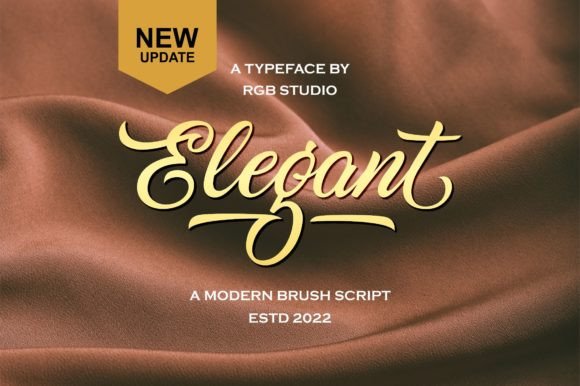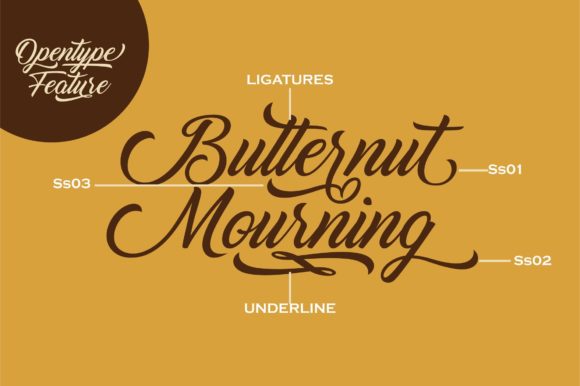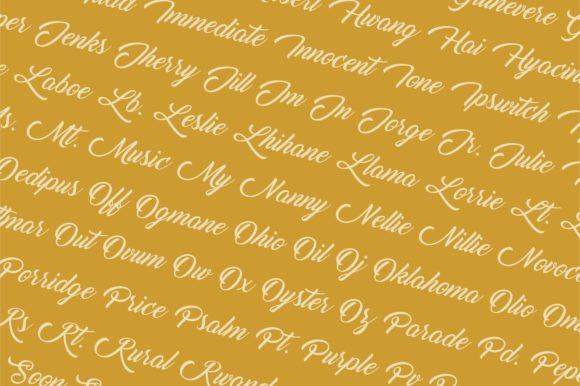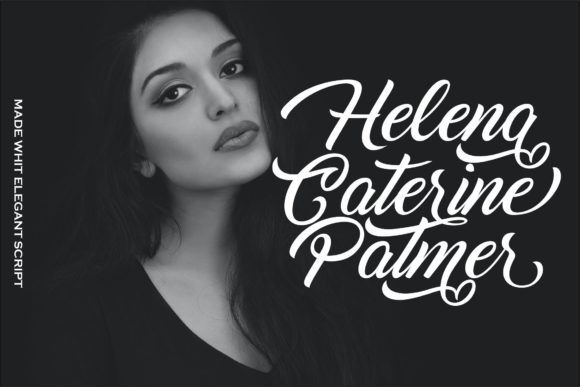
Elegant Font
About the Elegant Font
Introducing the Elegant Font, a beautifully crafted typeface designed to elevate your creative projects. Elegant is a sweet and friendly handwritten font. Its natural and unique style makes it incredibly fitting to a large pool of designs. The only limit is your imagination!
Elegant performs best in headlines, short text blocks, and branding applications where a friendly, approachable feel is desired. It works well for invitations, greeting cards, logos for boutiques or cafes, and packaging for artisanal products. However, its handwritten nature makes it unsuitable for body text or UI elements requiring high readability. Long paragraphs set in Elegant would be difficult to read.
Its core personality is indeed sweet and friendly, but also possesses a touch of playful sophistication. Therefore, it pairs well with clean sans-serif fonts like Lato or Open Sans for a balanced contrast, or with a more structured serif like Garamond or Playfair Display for added elegance. Avoid pairing it with overly geometric or heavily stylized fonts that might clash with its natural flow.
Consider using Elegant with subtle texture or watercolor backgrounds to enhance its handwritten quality and further support its friendly and approachable brand personality.
Elegant Font Example